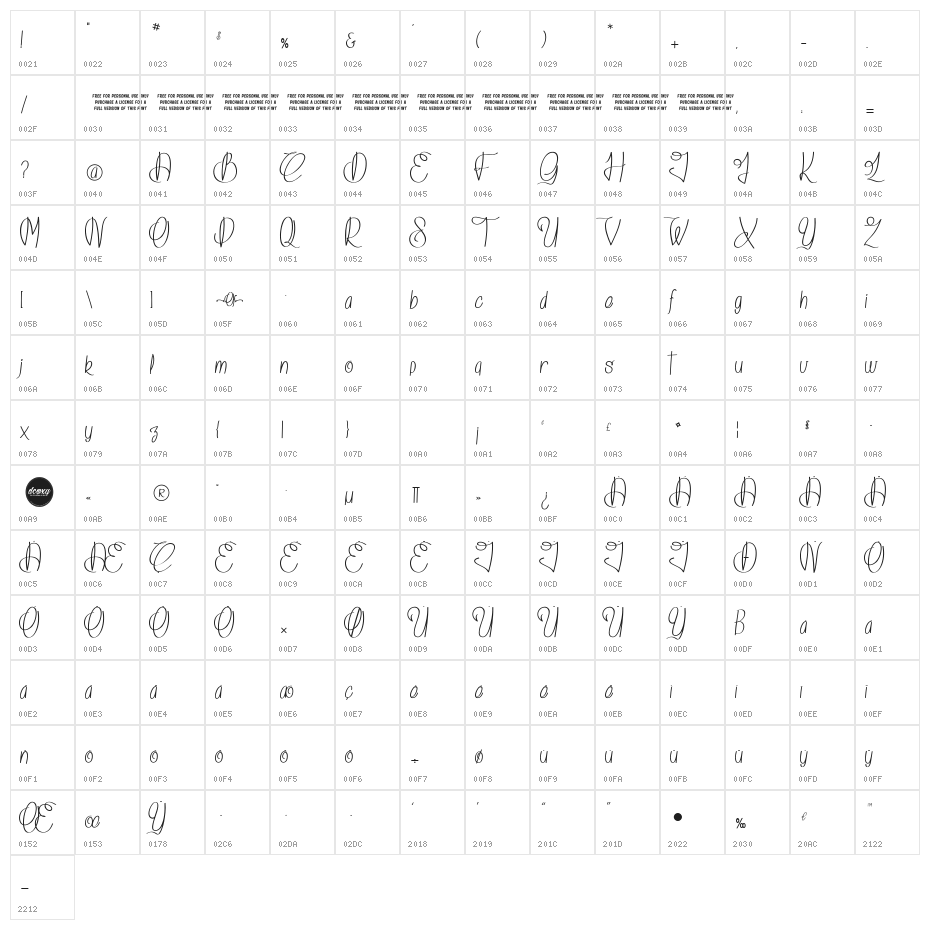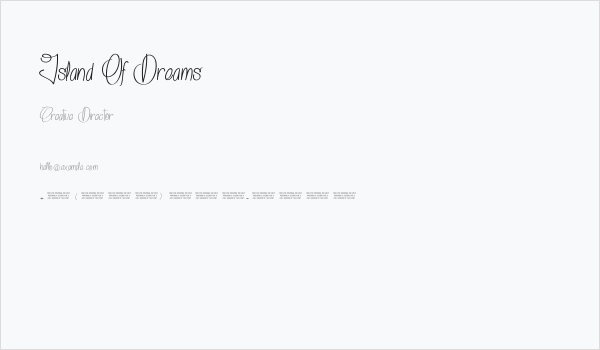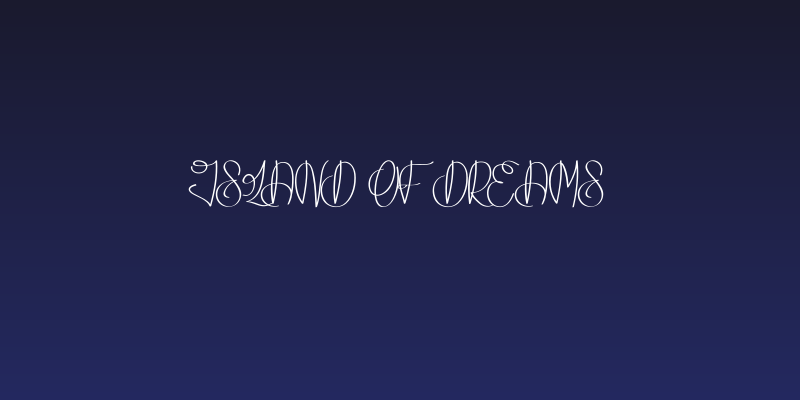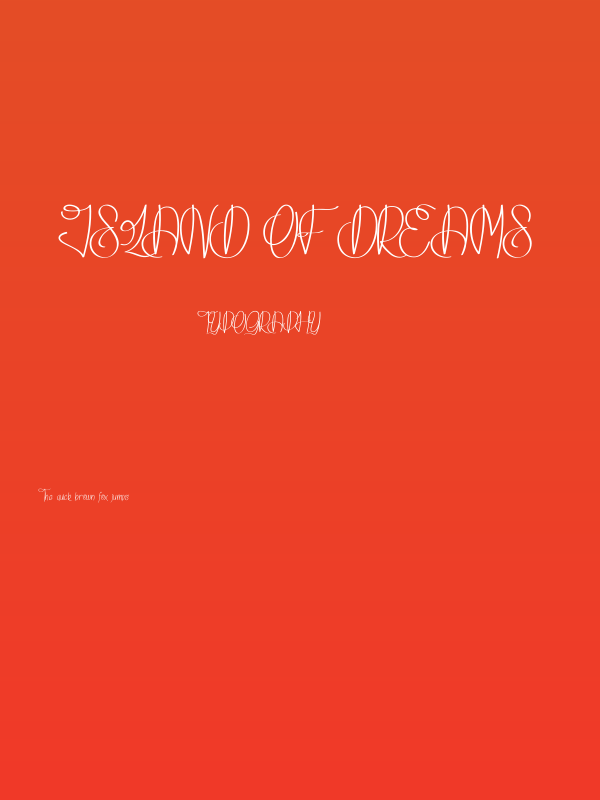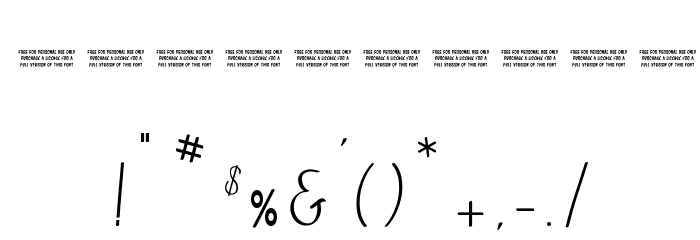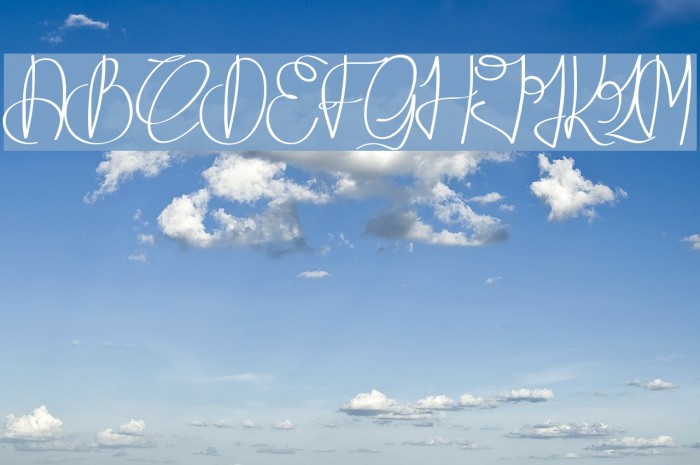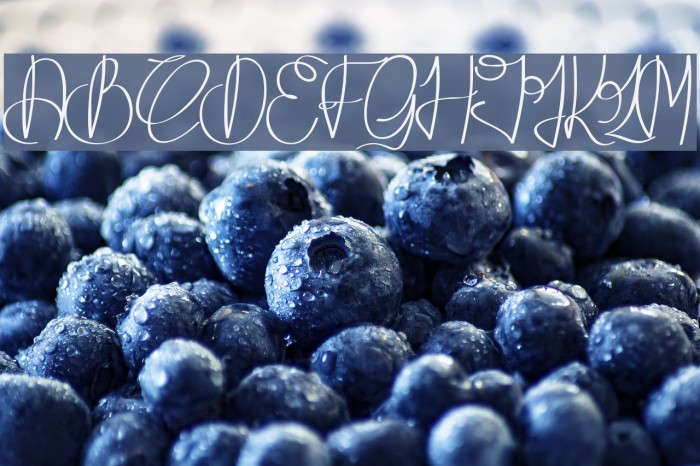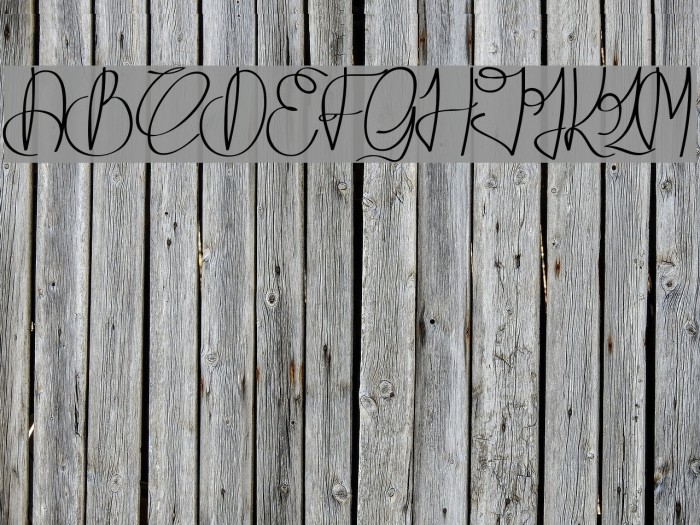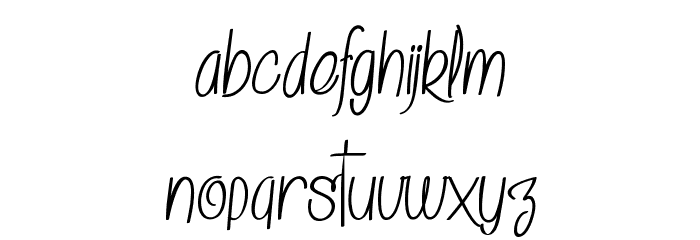
Island Of Dreams Font
This font features an elegant and flowing script style with a whimsical touch. The uppercase letters are characterized by their intricate loops and swirls, creating a sense of movement and grace. The lowercase letters maintain a more straightforward yet still fluid design, complementing the uppercase with their slightly elongated forms. The numerals and special characters follow the same stylistic cues, ensuring consistency throughout. This font's delicate lines and artistic flair make it ideal for projects that require a touch of sophistication and creativity.